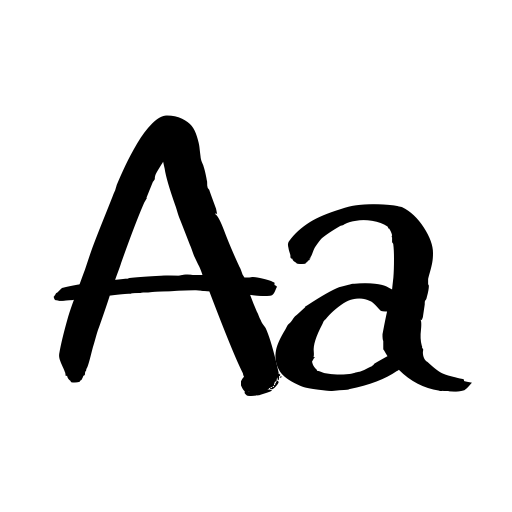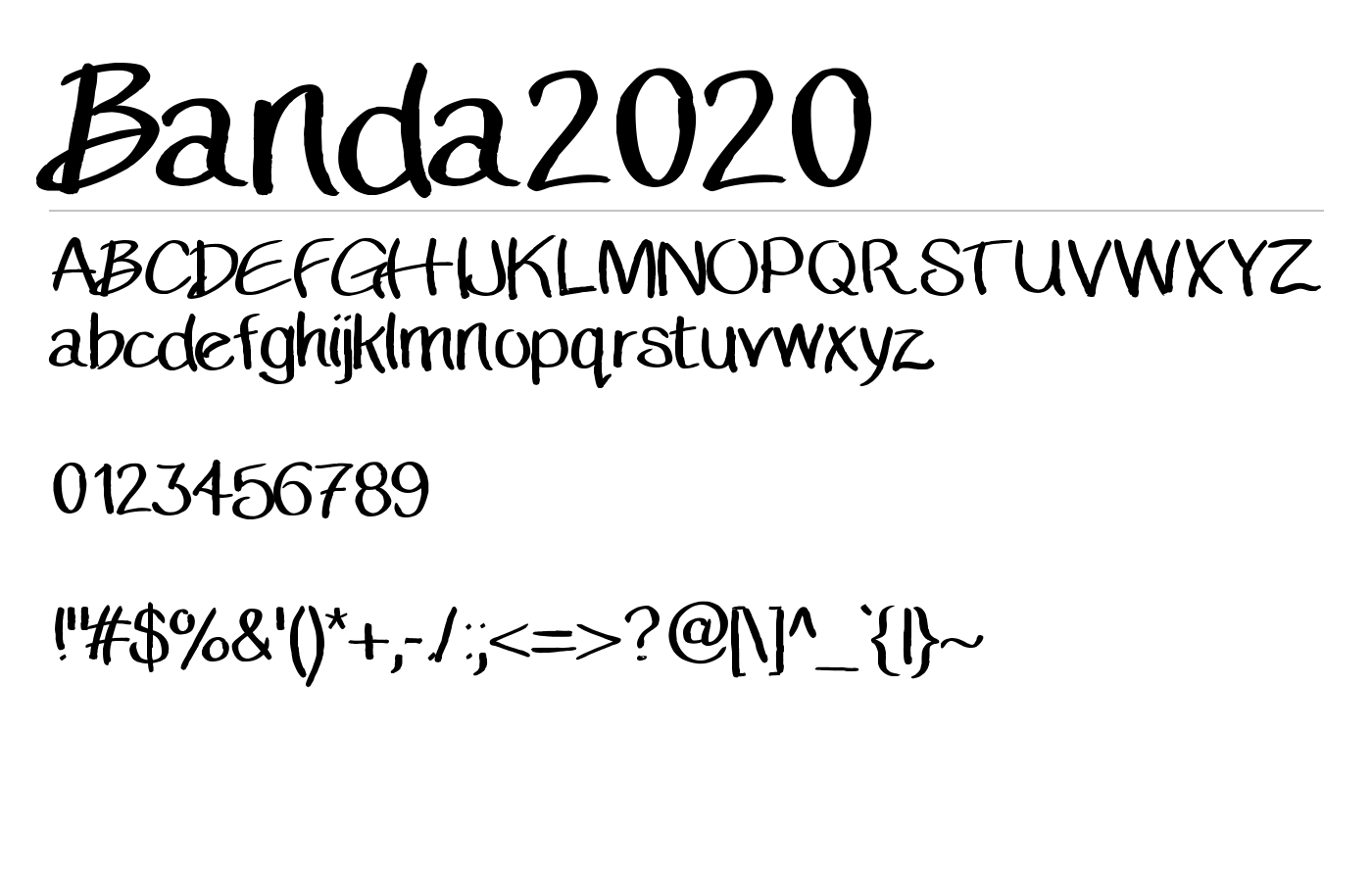
Banda2020 is a lively, handwritten-style font with a casual and organic feel, featuring irregular, brush-like strokes that give it a playful yet approachable personality. Its medium weight and slightly condensed proportions combined with organic curves make it perfect for creative and informal branding, invitations, packaging, and headlines that seek a personal, artisanal touch. This font works well in designs looking to convey authenticity, warmth, and a fun, handcrafted vibe.
Banda2020 Font
About Banda2020 Font